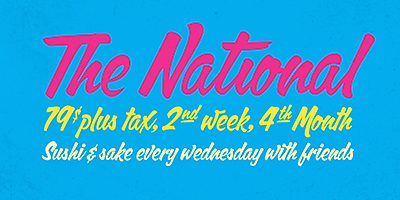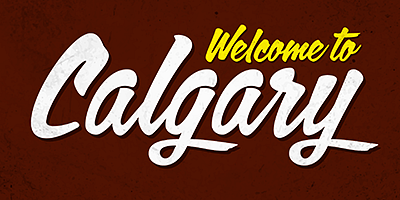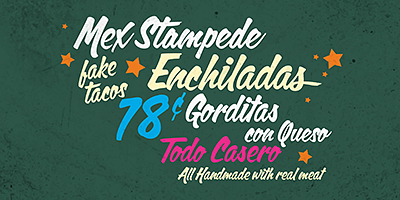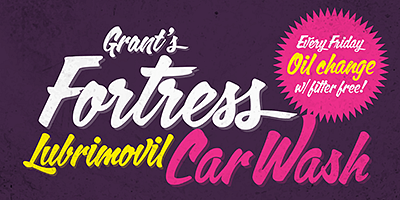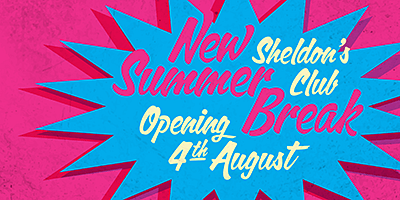
Calgary Script was mostly inspired by a brush script on a Welcome To Calgary sign in, you guessed it, Calgary. Though now, after it’s finished, I can easily tell the influence is evident of all the books on American sign painting I have absorbed over the years.